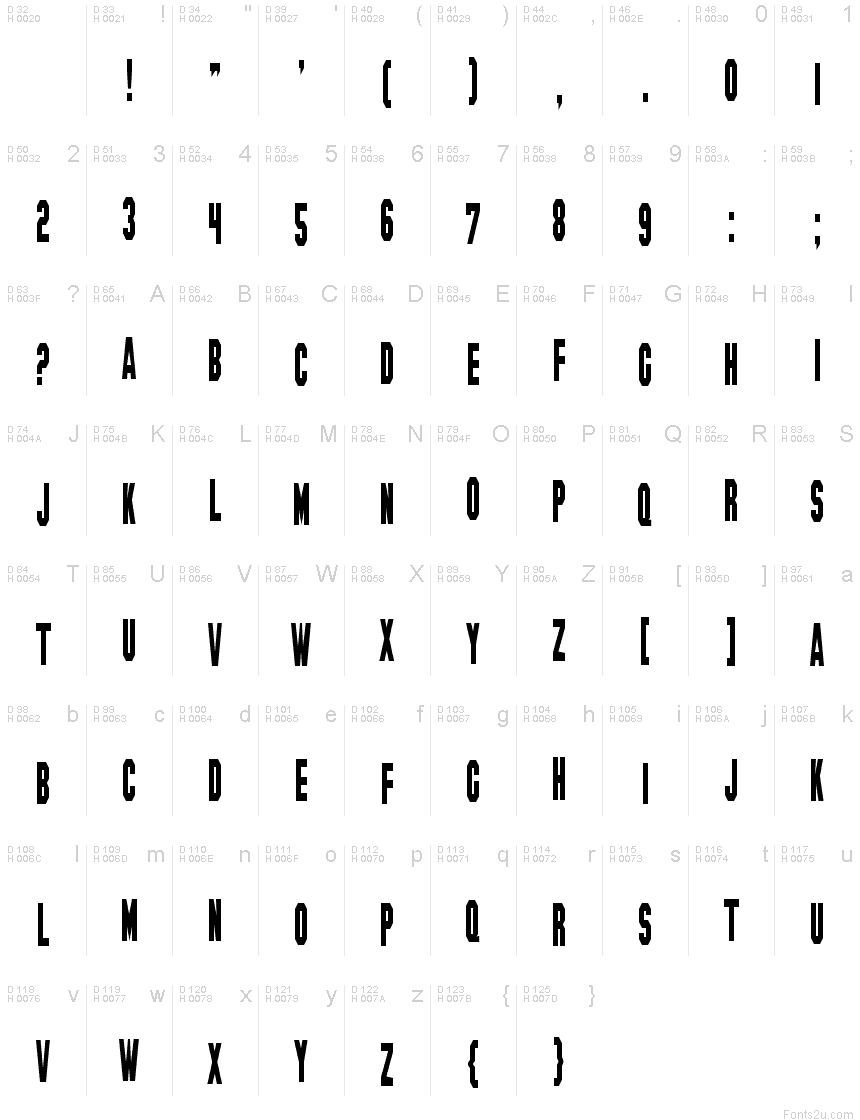
Hollywood Hills Condensed
Hollywood Hills Condensed font by Shywedge is a free old-school display typeface that turns any headline into a towering marquee. The letters are intensely tall, tightly packed, and blocky, echoing vintage cinema signage and bold poster walls. Their vertical punch and crisp, black silhouettes grab attention instantly, especially when set large and stacked in short words.
Using Hollywood Hills Condensed, you can brand movie nights, retro event posters, album covers, flyers, bold logotypes, and social-media graphics that need a loud, urban edge. This free font shines when you push the size and keep copy short, then pair it with a simple, open sans serif for supporting text to let its condensed drama stand center stage.